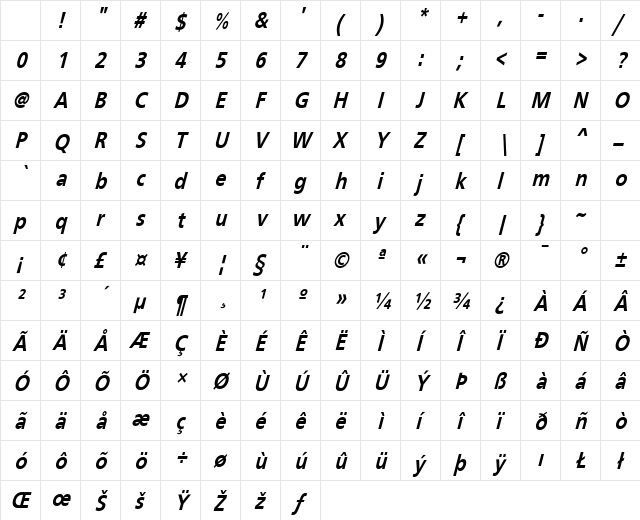
Complete Frutiger Condensed Bold Oblique glyph index. Displaying only characters natively supported by Frutiger Condensed Bold Oblique font.
Frutiger Condensed is a composed and adaptable typeface that performs quietly and consistently across a wide range of design contexts. The slanted form adds forward momentum and visual energy. Its bold stroke weight gives it real presence on the page. Its narrow stance lets it pack a punch even in space-constrained designs.
Pro Tip: Use Frutiger Condensed for emphasis, pull quotes, and subheadings where its slanted energy can add rhythm to the layout.